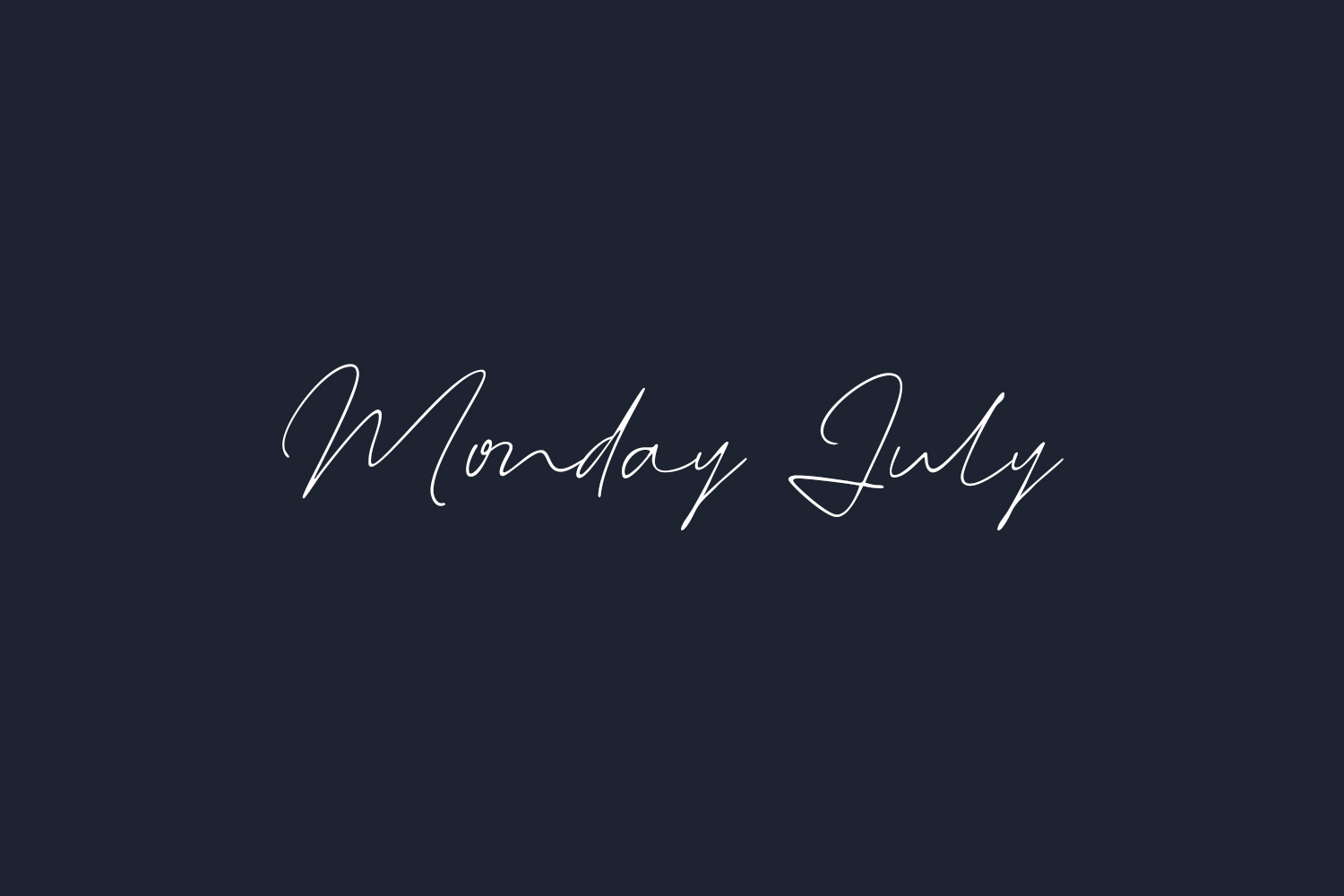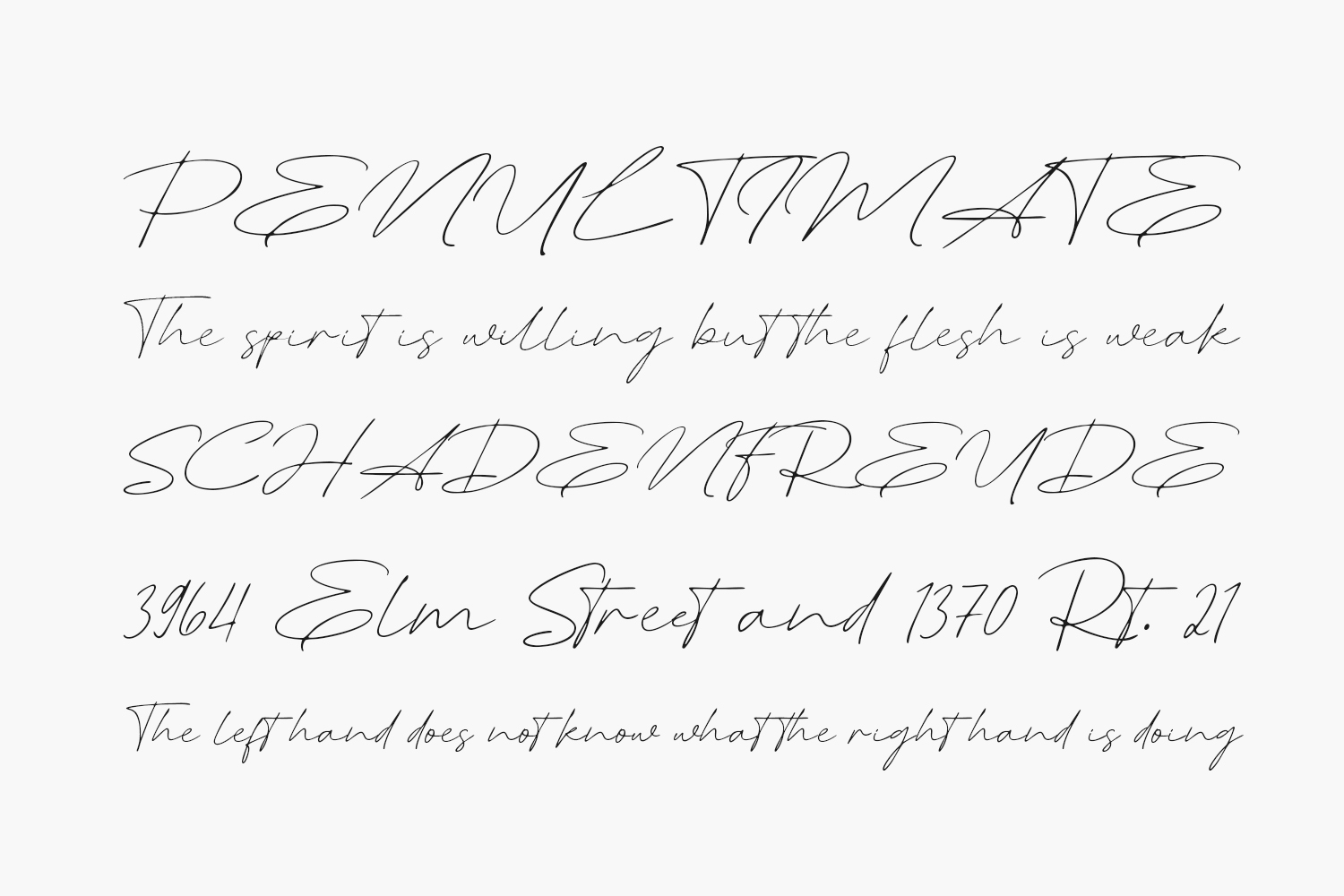
Monday July Free Font is a modern and elegant script font perfect for posters, logos, magazines, book covers, banners, and many more! Get this amazing font, and use it to create lovely designs. Monday July Free Font is free for personal use only. Please purchase the full version for commercial use.